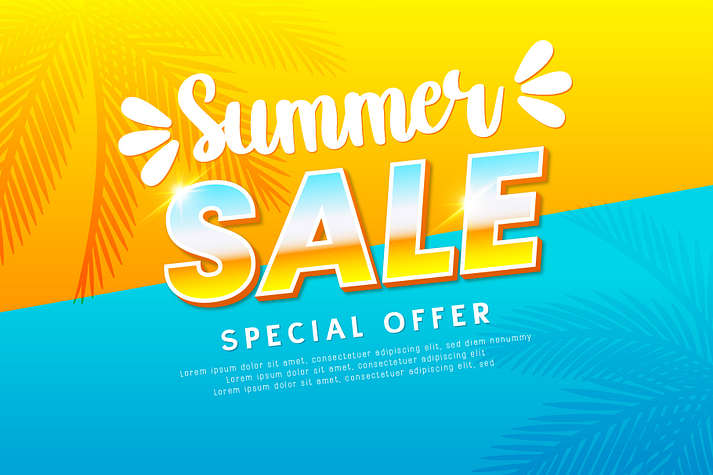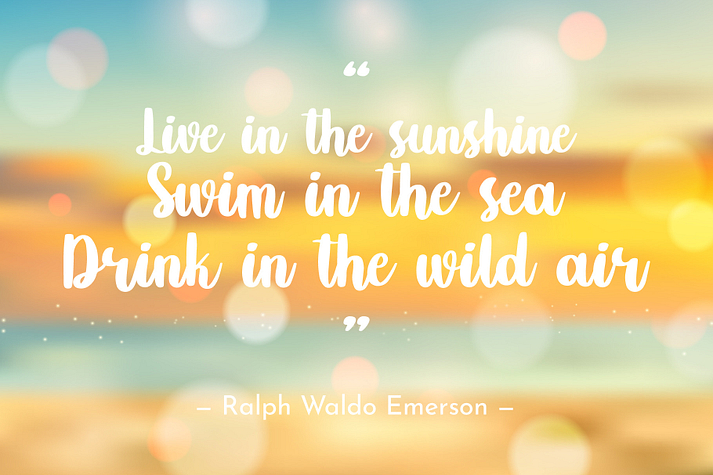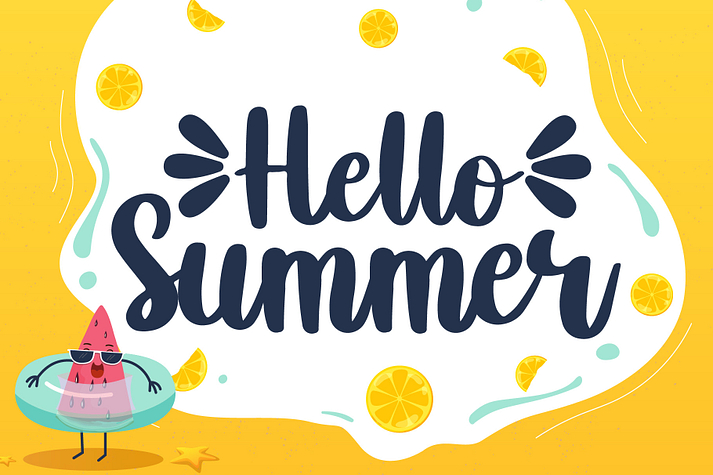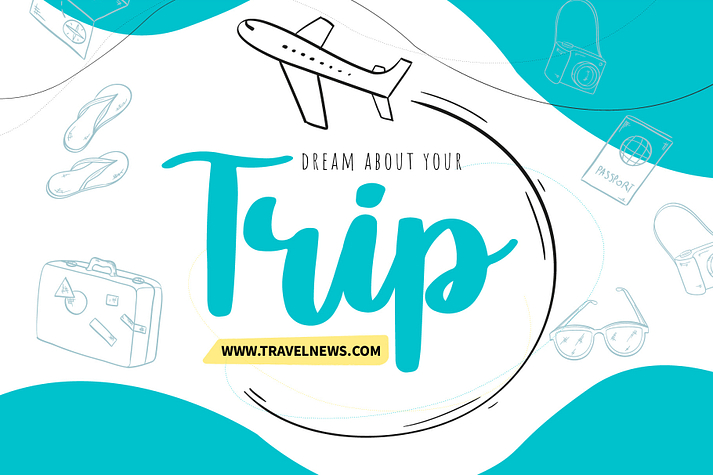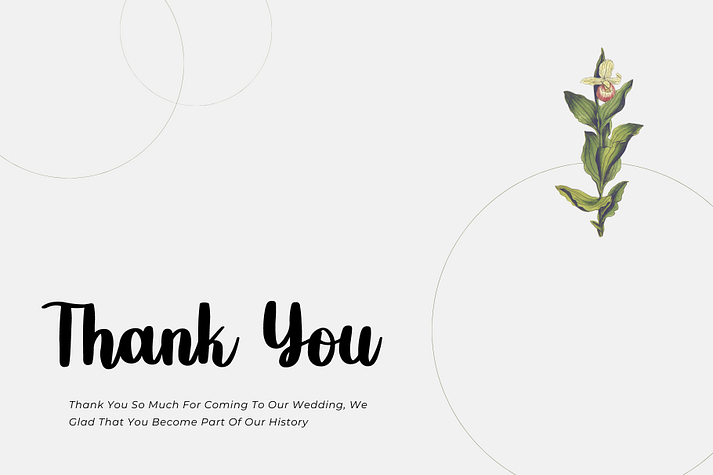
Hello Summer
Hello Summer is a font family published by Fox7.
Hello Summer is a fun and gorgeous script font.  this font will be ideal for blog posts, logos, branding, ads, invitations, greeting cards, planners, photo albums, decorations, and much more.